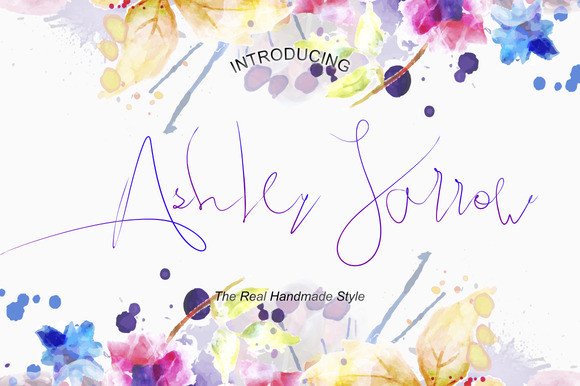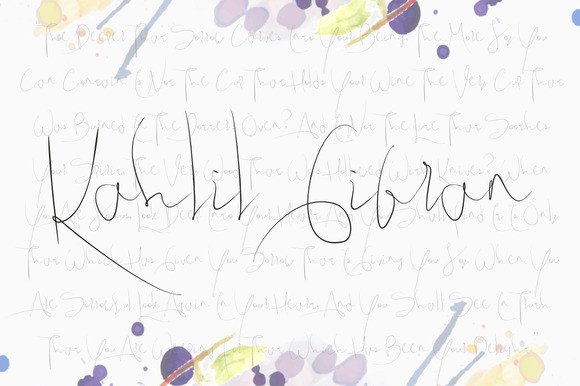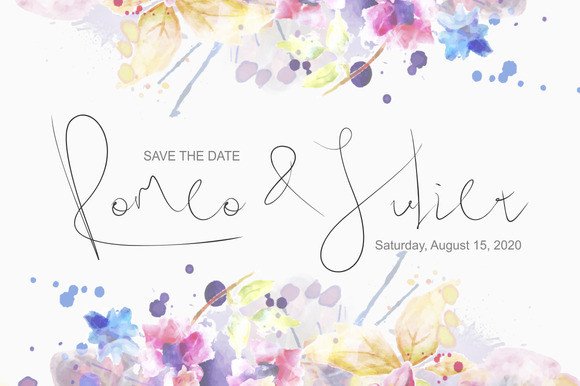
Ashley Jarrow Font
About Ashley Jarrow Font
Ashley Jarrow is a thin and gorgeous script font, crafted in a signature casual style. This sketchy yet fashionable script font is ideal for romantic and editorial use.